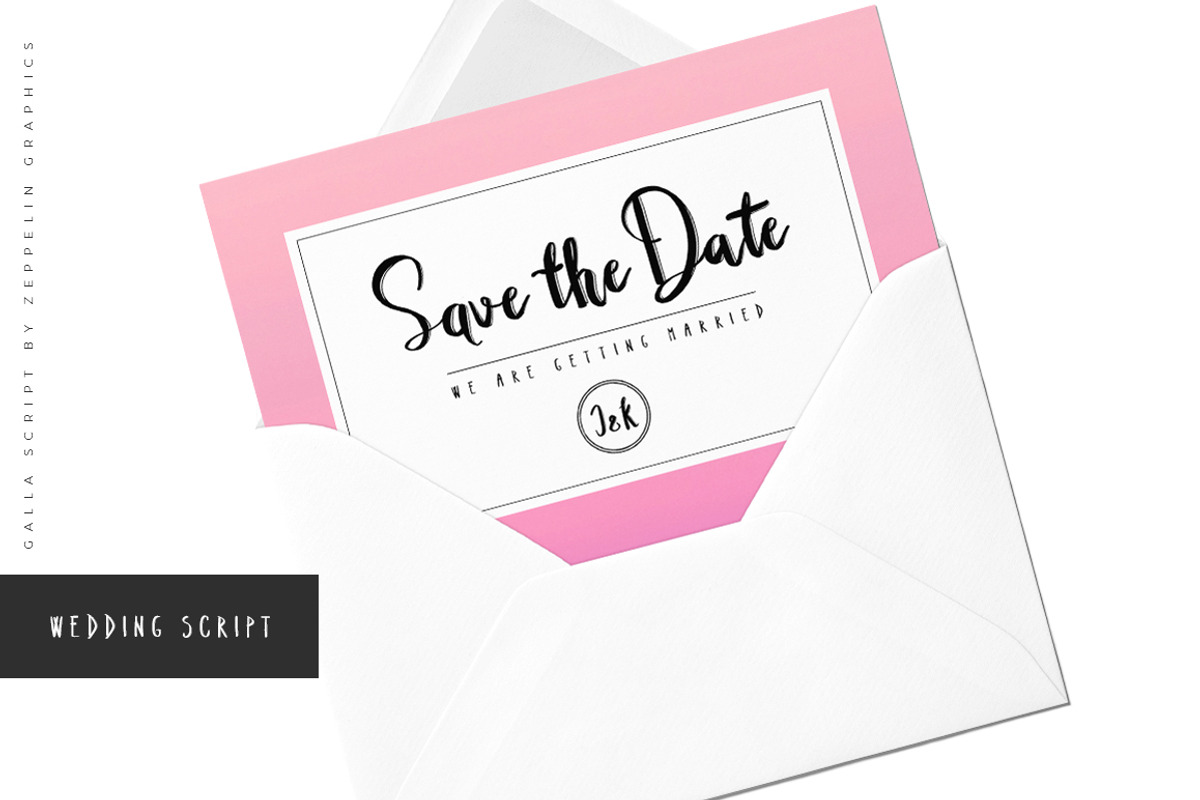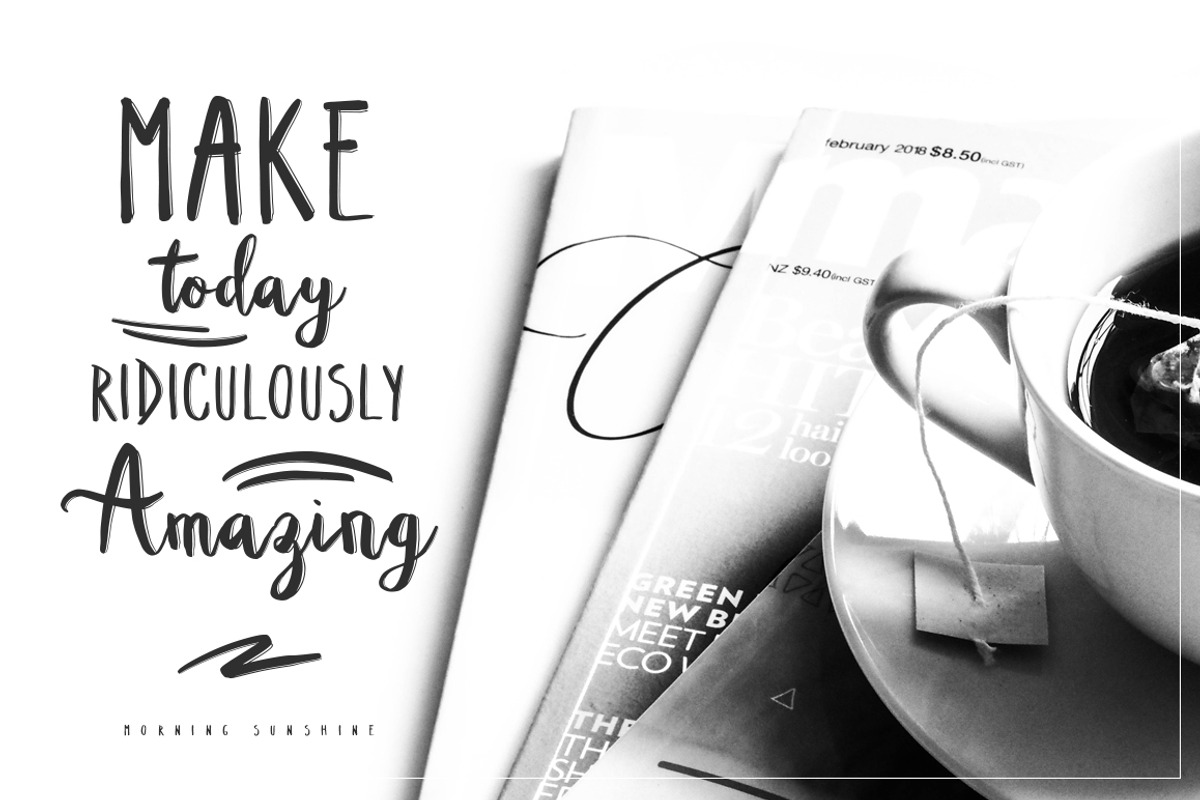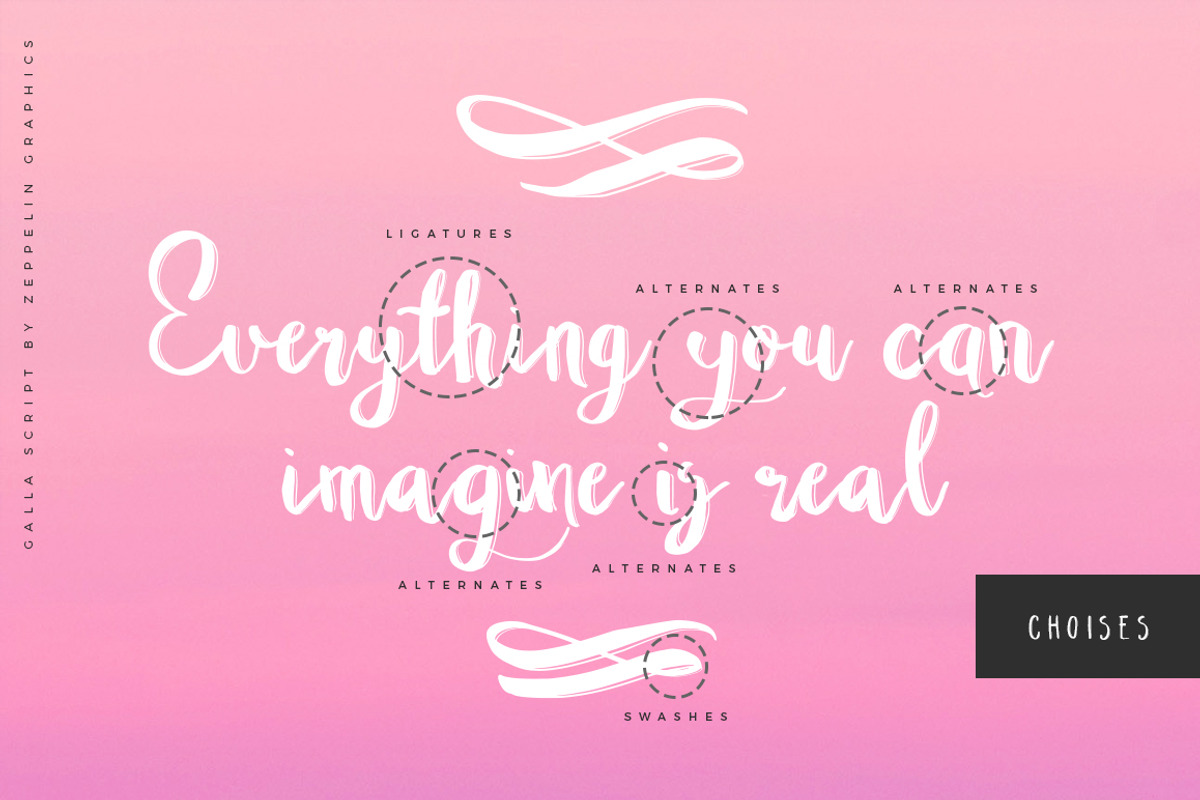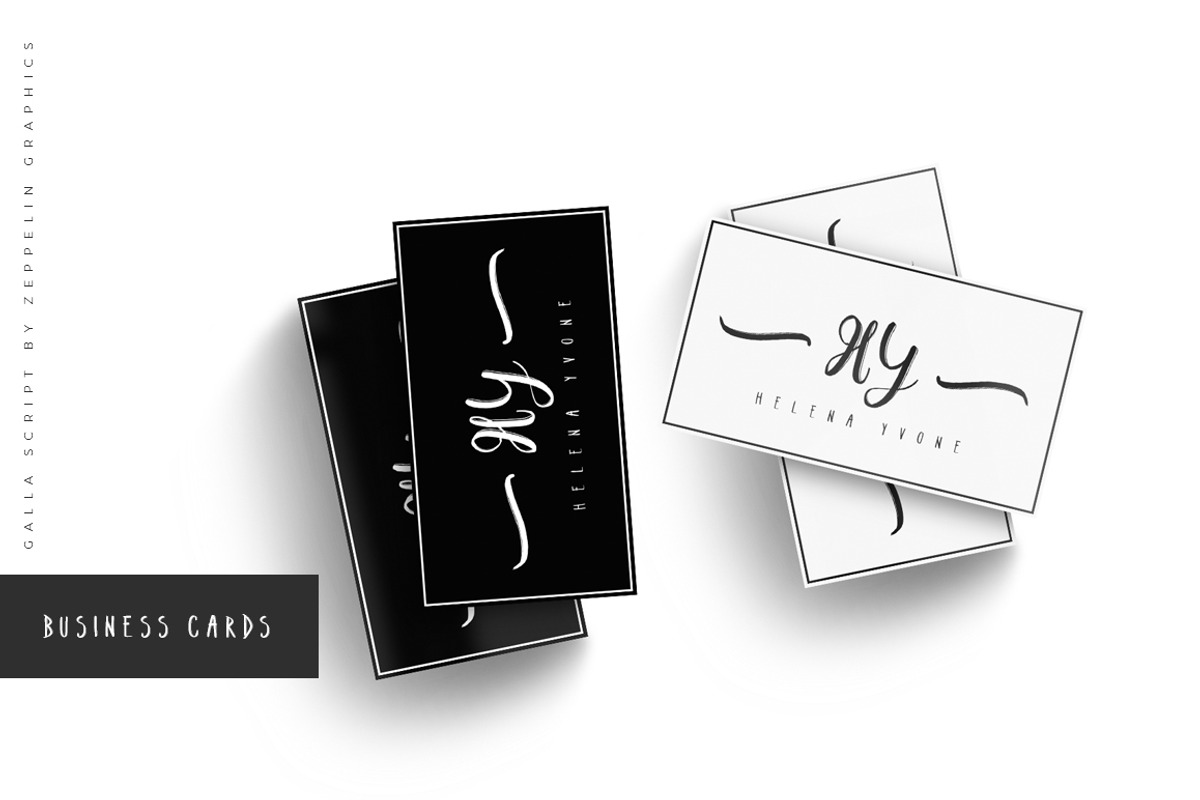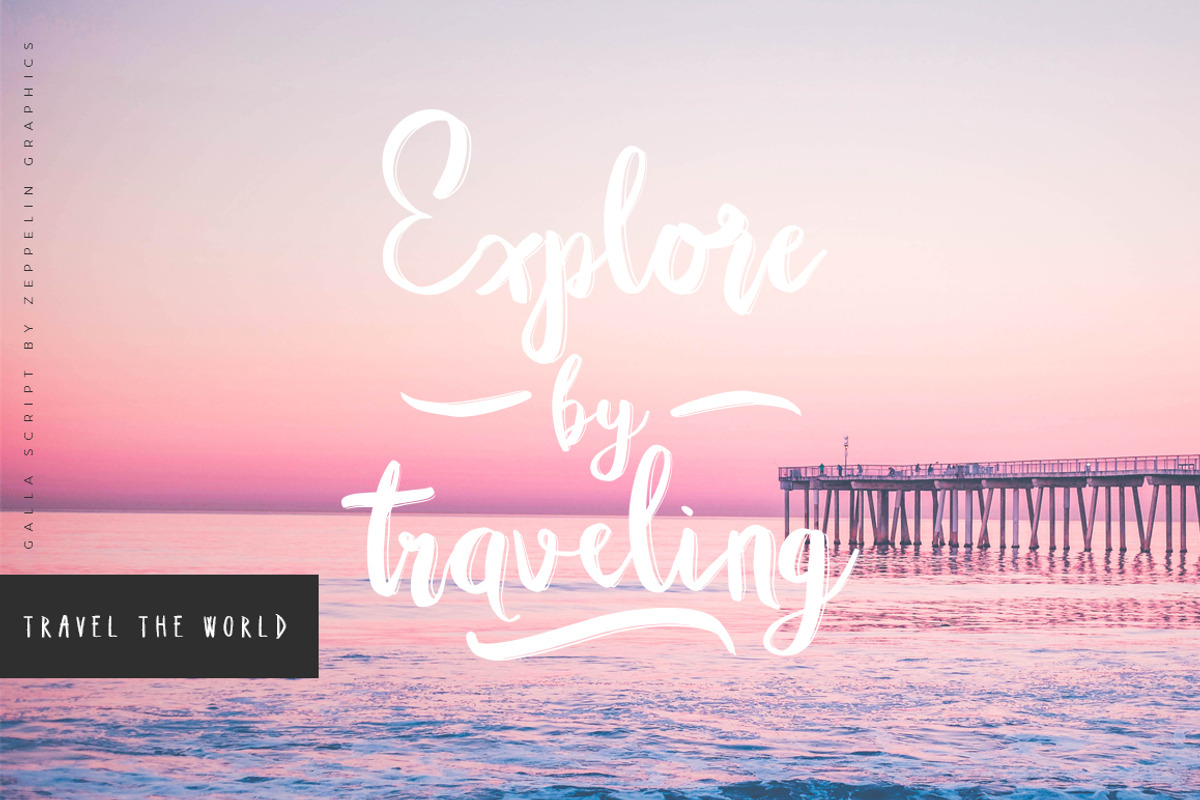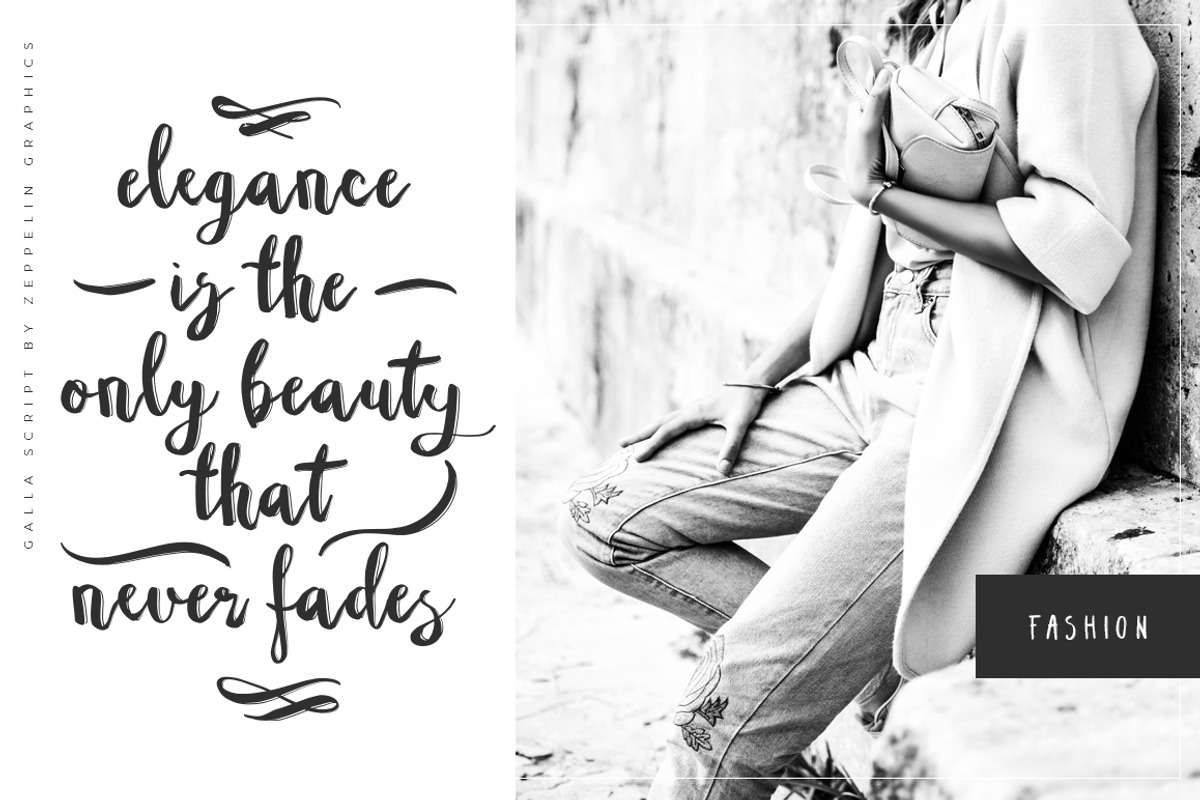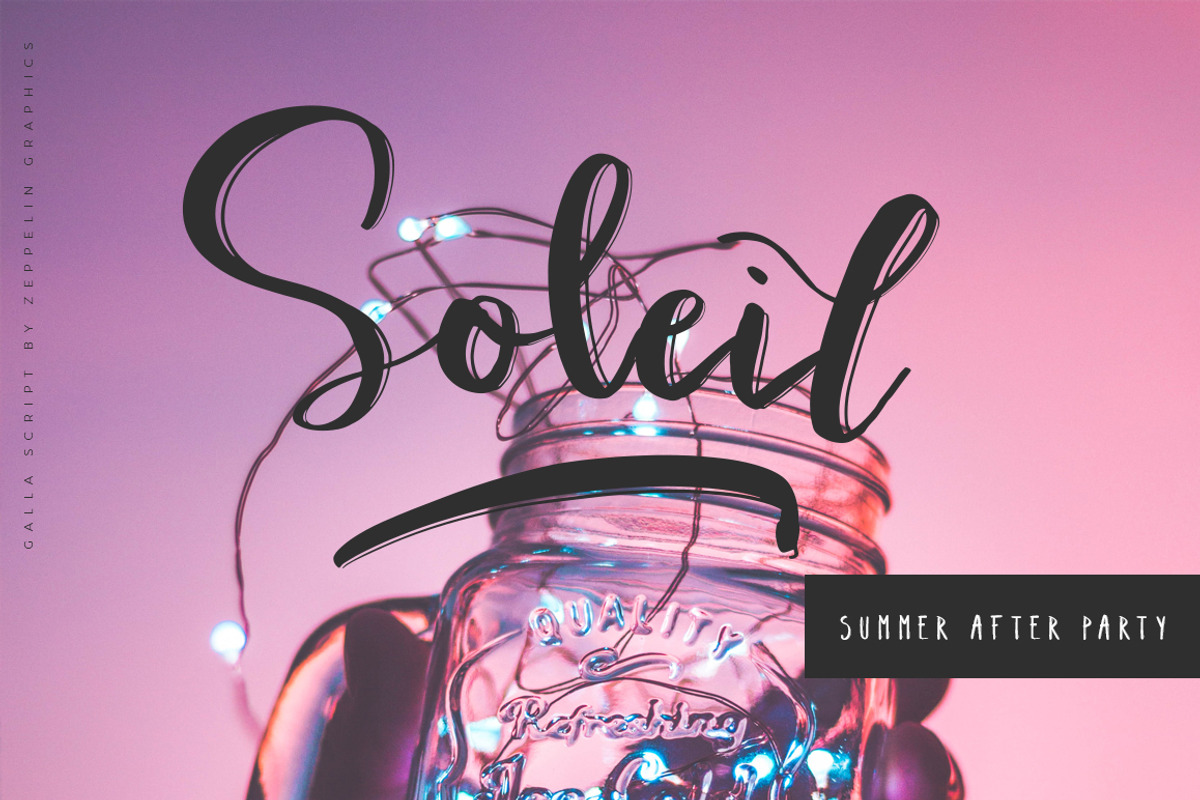
Galla Font Duo
Galla includes uppercase and lowercase letters, numerals and punctuation and it's a perfect choice for signature type texts, titles, invitations or very stylish logos as seen in the presentation images.
Galla Script features:
- We are happy to introduce Galla Font Duo, a script font that includes 2 versions, 110 ligatures and 50 awesome swashes!
- 110 Ligatures
- 50 Swashes